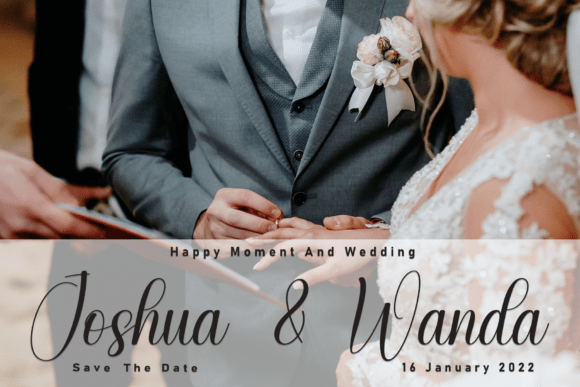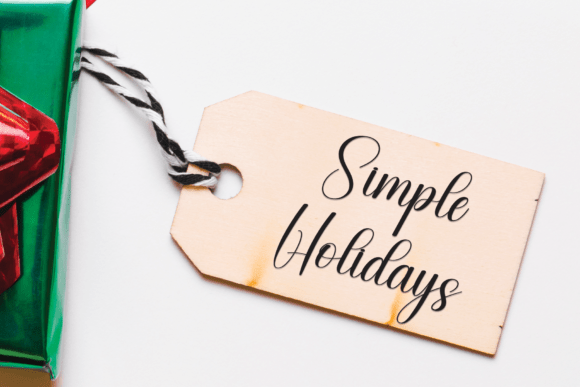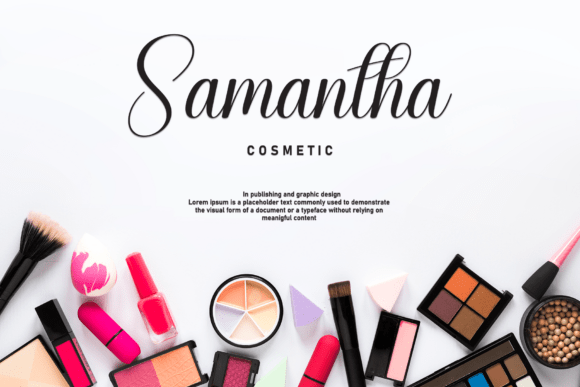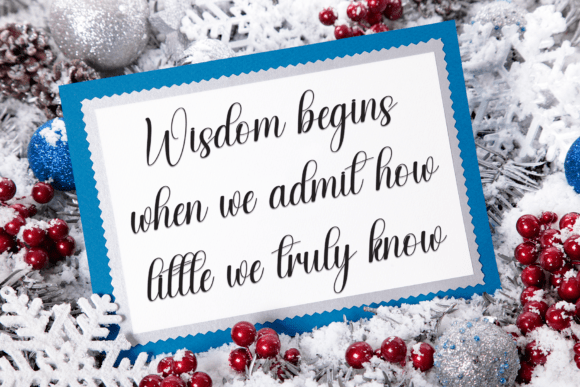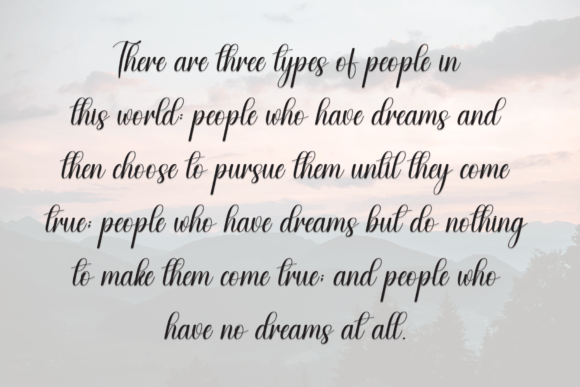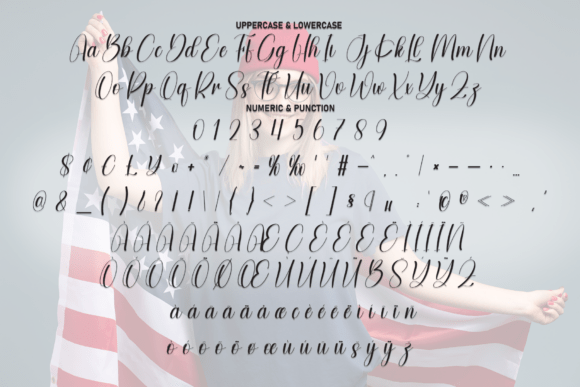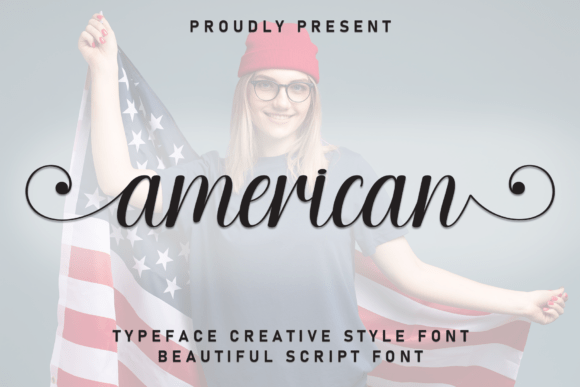
Discover the Charm of American Font: A Handcrafted Display Font
Step into a world of charm and creativity with our uniquely handcrafted display font, American Font. This delightful typeface is designed to bring a gentle warmth and friendliness to any design, making it a perfect choice for crafters and designers looking to add a touch of personality to their work.
The Essence of American Font
American Font is more than just a typeface – it’s an experience. With its playful, seductive essence, this font is sure to captivate your audience and leave a lasting impression. Its magnetically simple yet creatively compelling universe is waiting to be explored, and we’re excited to show you what it has to offer.
Perfect for Wedding Invitations and Sentimental Cards
American Font is a perfect choice for crafting captivating wedding invitations, sentimental cards, or any other design project that requires a touch of warmth and personality. Its gentle warmth and friendliness breathe life into any design, making it an ideal choice for designers and crafters who want to create something truly special.
Infuse Your Designs with Joy and Creativity
With American Font, you can infuse an irresistibly joyful aura into any design endeavor. Whether you’re working on a wedding invitation, a greeting card, or a branding project, this font is sure to add a touch of whimsy and creativity to your work. Its uniquely enticing blend of simplicity and inventiveness makes it a versatile typeface that can be used in a variety of design contexts.
What Makes American Font Special?
So, what sets American Font apart from other typefaces? Here are a few features that make it truly unique:
- Handcrafted with love: American Font is a handcrafted display font, carefully designed to bring a touch of warmth and personality to your designs.
- Playful and seductive: This font has a playful, seductive essence that’s sure to captivate your audience and leave a lasting impression.
- Simple yet creative: American Font has a magnetically simple yet creatively compelling universe that’s waiting to be explored.
- Perfect for a variety of design projects: Whether you’re working on a wedding invitation, a greeting card, or a branding project, American Font is a versatile typeface that can be used in a variety of design contexts.
Tips for Using American Font in Your Designs
Here are a few tips for using American Font in your designs:
- Use it as a display font: American Font is designed to be used as a display font, so use it to add a touch of personality to your headings and titles.
- Experiment with different colors: American Font looks great in a variety of colors, so don’t be afraid to experiment and find the perfect color to match your brand or design.
- Pair it with other fonts: American Font can be paired with other fonts to create a unique and interesting design. Try pairing it with a sans-serif font for a modern look or a serif font for a more traditional look.
American Font is a uniquely handcrafted display font that’s sure to bring a touch of charm and creativity to your designs. With its playful, seductive essence and gentle warmth and friendliness, this font is perfect for designers and crafters who want to create something truly special. Whether you’re working on a wedding invitation, a greeting card, or a branding project, American Font is a versatile typeface that can be used in a variety of design contexts. So why not give it a try and see what amazing designs you can create?